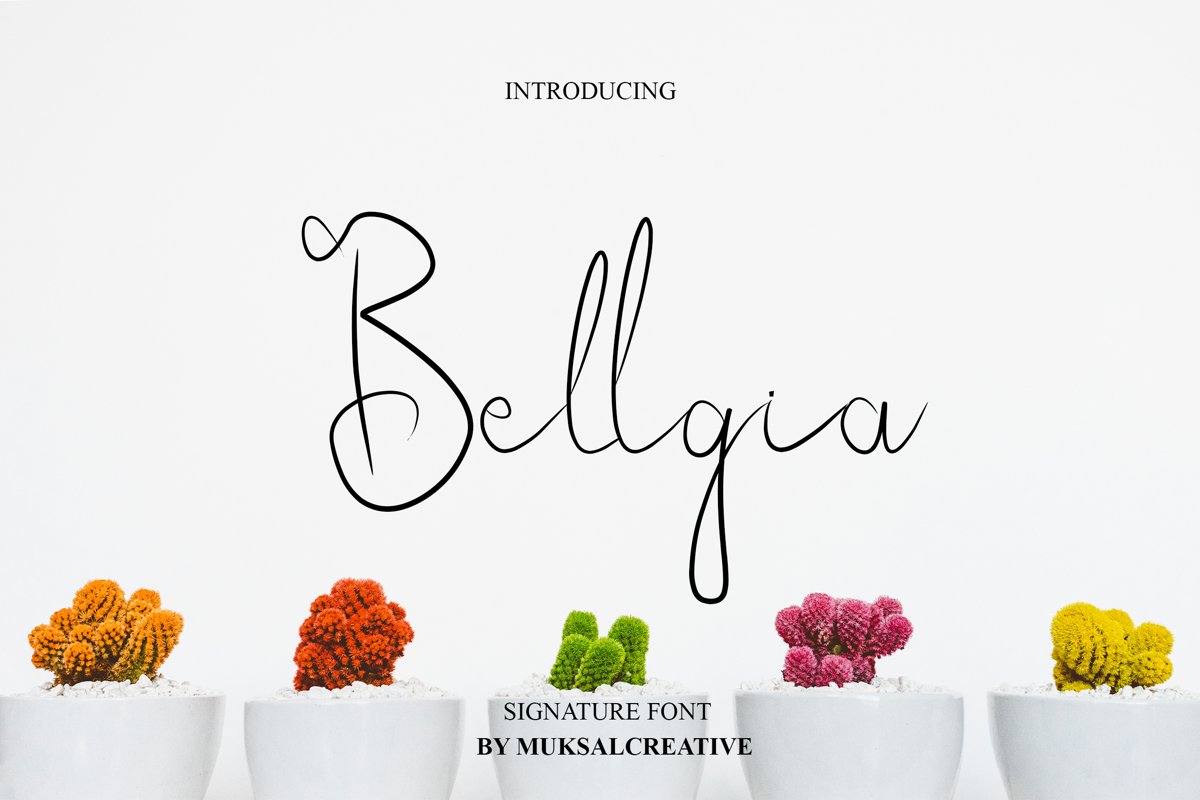
Bellgia
bellgia
Bellgia Script signature fonts, combines from copperplate to contemporary typeface, classic and elegant touch. With extra bouncy curves & loops, Bellgia Script is guaranteed to make your text stand out - perfect for logos, printed quotes, invitations, cards, product packaging, headers and whatever your imagination holds.
-Ligature
- arltenate